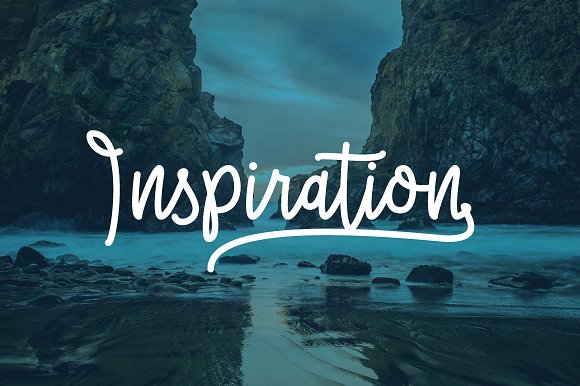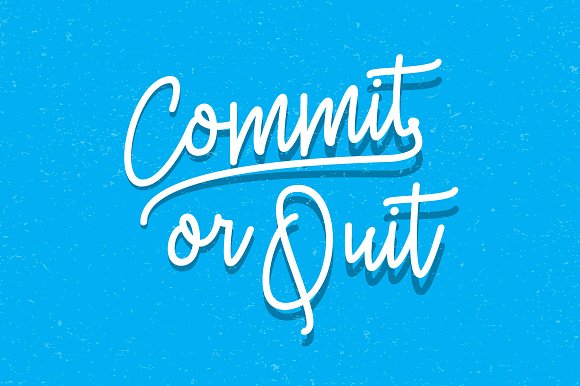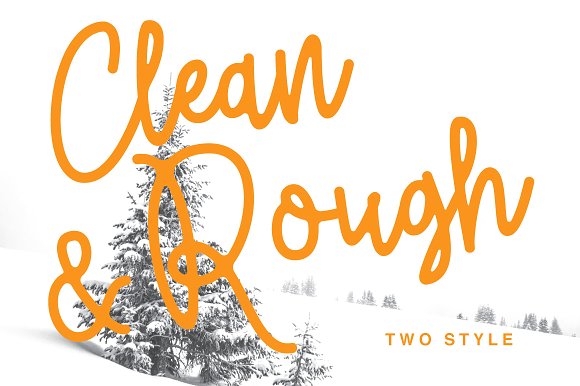
Introduction to Prasto Font
Prasto is a fun modern handwritten monoline font created by Ian Mikraz.
The Prasto font comes in 2 variations: Clean & Rough .
Key Features of Prasto Font